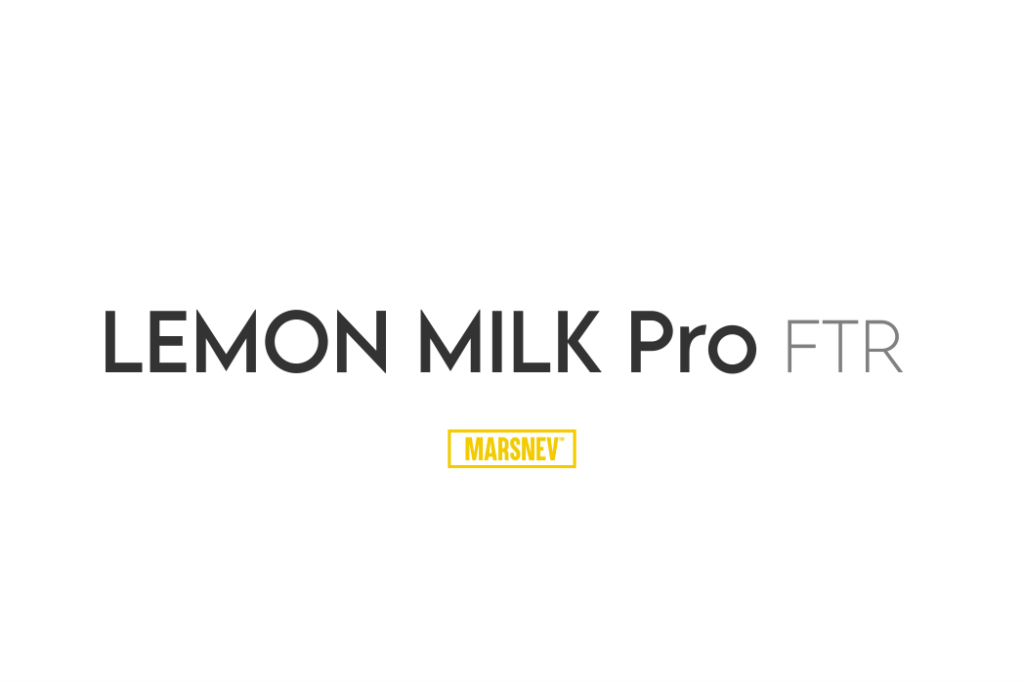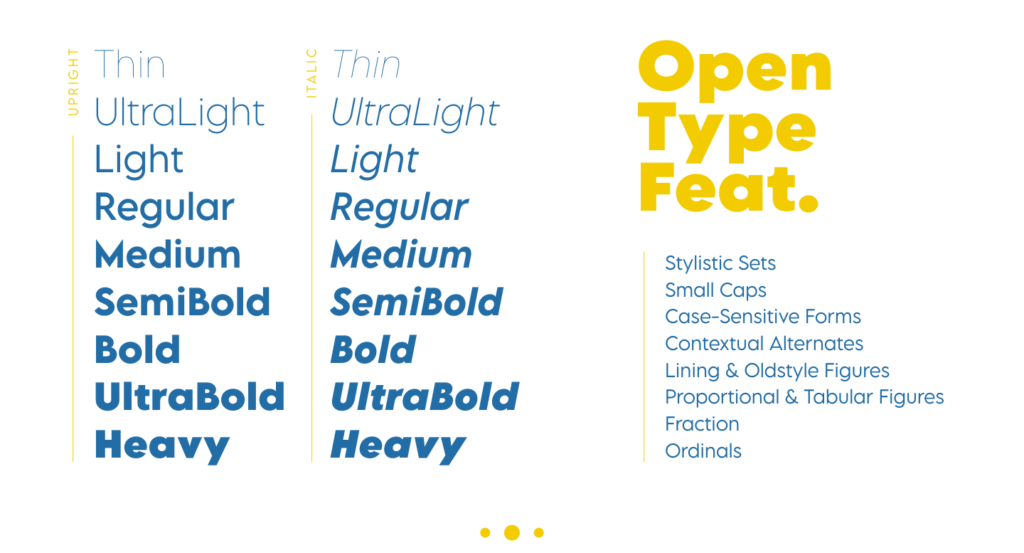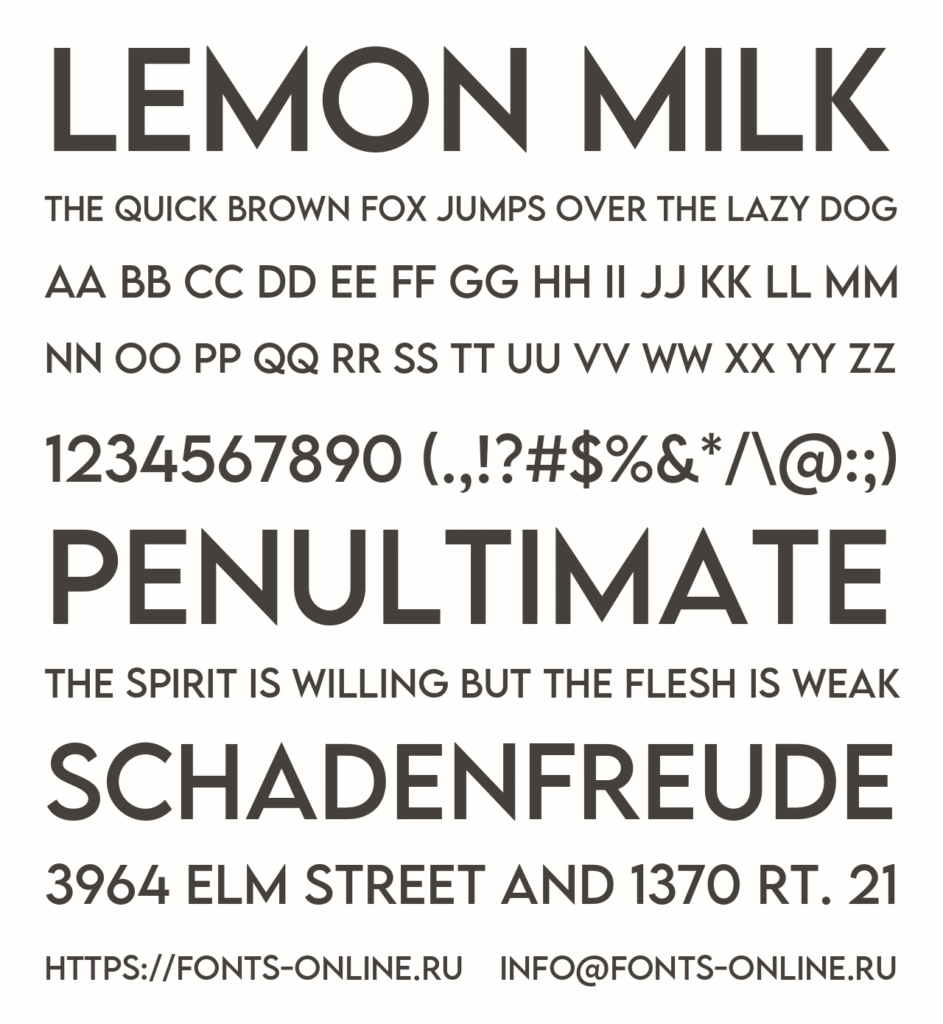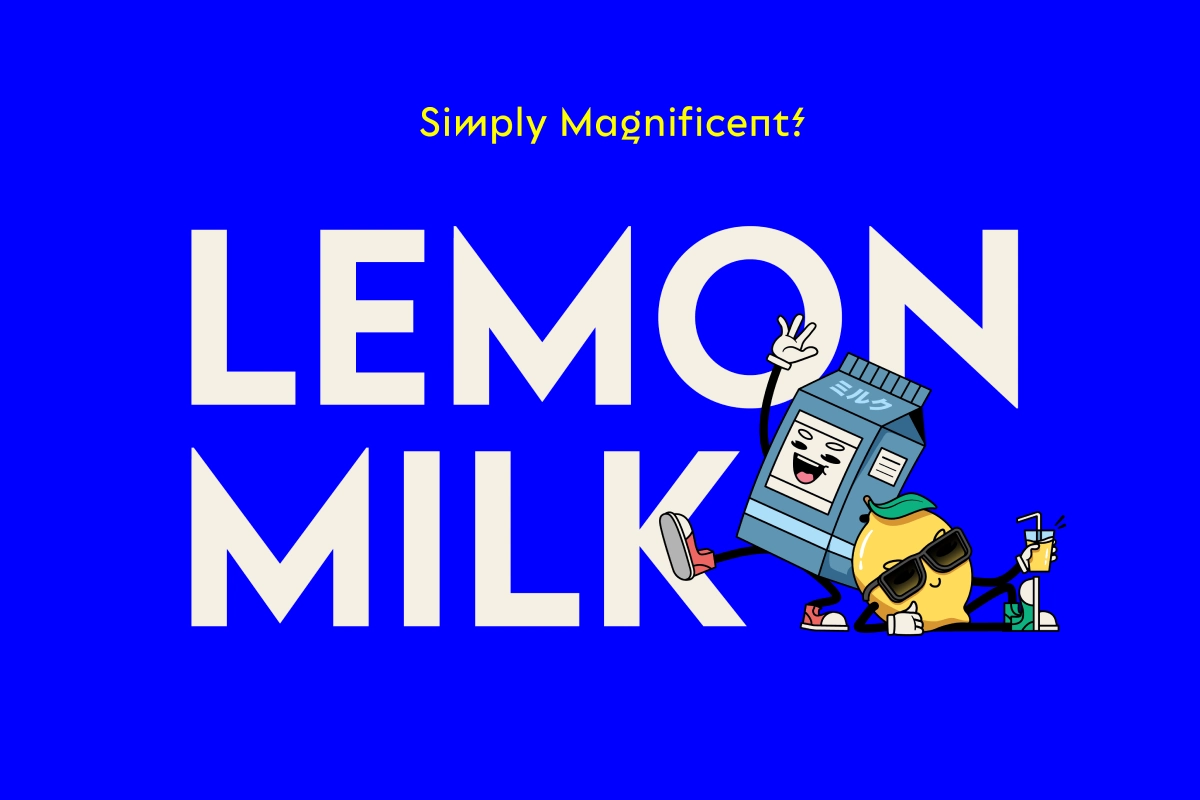
Lemon Milk font is a modern sans serif font designed to deliver a bold and clean visual impact. With sharp geometric edges combined with thin strokes, this typeface creates a strong mid-century architectural feel. Lemon Milk font stands out as a display font that works perfectly for headlines, branding, posters, and modern layouts that need a confident and minimalist look.
As a complete family font, Lemon Milk has evolved significantly from its original release. The latest version includes lowercase characters and supports extended Latin, Cyrillic, and Greek scripts, making lemon milk fonts more versatile for global use. Developed with future-ready technology, this font family now features advanced OpenType options and variable font capabilities, allowing designers greater flexibility and control.
Known for its iconic style, lemon milk has become a favorite among designers who want clarity and precision. Whether you search for lemon milk font download, explore milk and lemon typography concepts, or simply need a striking display typeface, Lemon Milk delivers both functionality and style. Its clean structure ensures excellent readability while maintaining a strong visual identity.